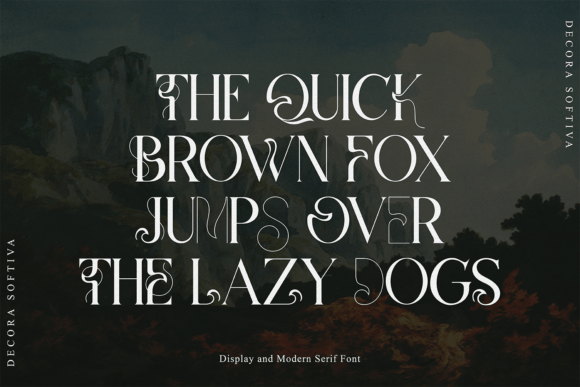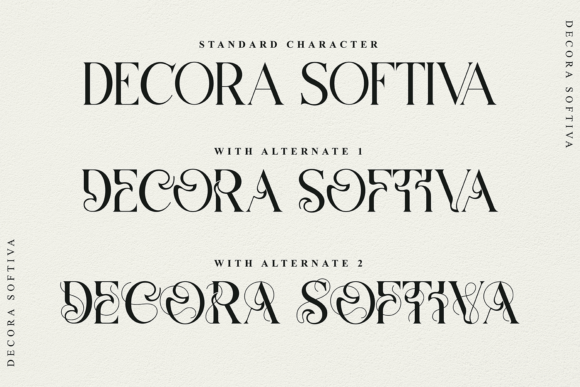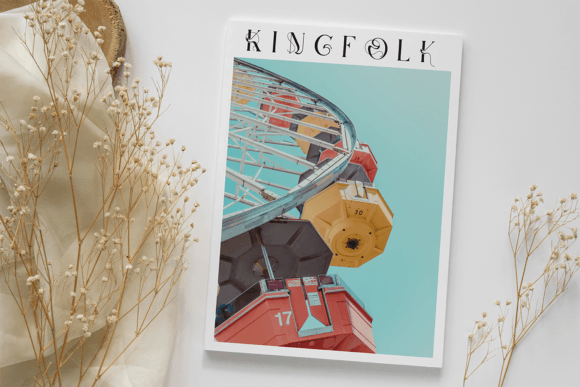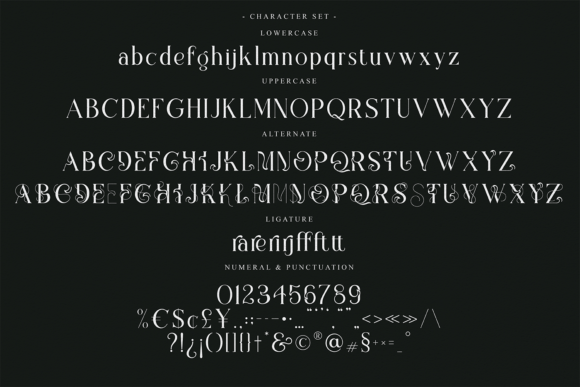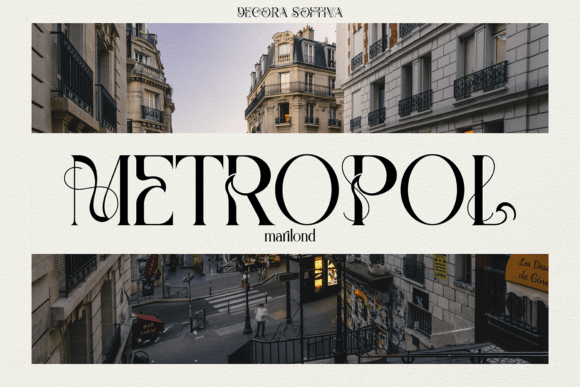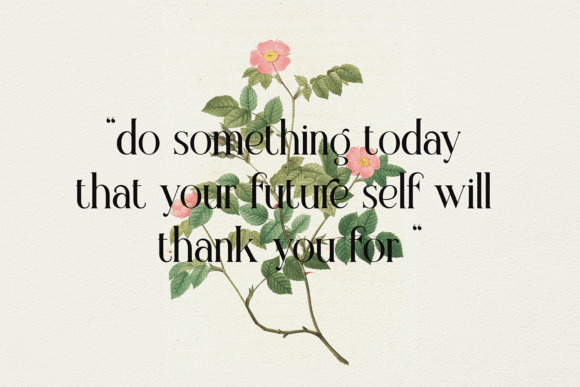
Introducing Decora Softiva Font: Elevate Your Designs with Elegance and Sophistication
In the world of typography, fonts play a crucial role in conveying messages, expressing emotions, and creating visual identities. For designers and crafters, finding the perfect font that combines aesthetics and functionality can be a daunting task. However, if you’re looking for a modern serif font that adds a unique touch to your designs, look no further than Decora Softiva Font.
What is Decora Softiva Font?
Decora Softiva is a modern serif font that boasts swirl decorative ornaments, making it an ideal choice for designers seeking to create spectacular designs. This font is perfect for those who want to add an extra layer of elegance and sophistication to their work. Whether you’re designing a logo, creating a brand identity, or crafting a beautiful piece of art, Decora Softiva Font is sure to impress.
Key Features of Decora Softiva Font
- Modern Serif Font: Decora Softiva is a modern serif font that combines traditional typography with contemporary design elements.
- Swirl Decorative Ornaments: The font features beautiful swirl decorative ornaments that add a touch of elegance and sophistication to your designs.
Benefits of Using Decora Softiva Font
So, why choose Decora Softiva Font for your design projects? Here are just a few benefits of using this amazing font:
- Unique and Aesthetic Designs: With Decora Softiva Font, you can create unique and aesthetic designs that stand out from the crowd.
- Versatility: Decora Softiva Font is versatile and can be used for a wide range of design projects, from logos and branding to crafting and art.
- High-Quality Typography: The font features high-quality typography that is clear, legible, and visually appealing.
Who Can Benefit from Decora Softiva Font?
Decora Softiva Font is perfect for a variety of designers and crafters, including:
- Graphic Designers: Graphic designers can use Decora Softiva Font to create stunning logos, brochures, and other marketing materials.
- Logotype Designers: Logotype designers can use the font to create custom logos and brand identities.
- Crafters: Crafters can use Decora Softiva Font to create beautiful handmade cards, scrapbook pages, and other craft projects.
- Art Designers: Art designers can use the font to create stunning artwork, illustrations, and other visual pieces.
Tips for Using Decora Softiva Font
To get the most out of Decora Softiva Font, here are a few tips to keep in mind:
- Use the Swirl Decorative Ornaments: Take advantage of the font’s swirl decorative ornaments to add a touch of elegance and sophistication to your designs.
- Pair it with Other Fonts: Decora Softiva Font can be paired with other fonts to create a unique and visually appealing design.
In conclusion, Decora Softiva Font is a modern serif font that offers a unique and aesthetic touch to designs. With its swirl decorative ornaments and PUA encoding, this font is perfect for designers and crafters seeking to create spectacular designs. Whether you’re a graphic designer, logotype designer, crafter, or art designer, Decora Softiva Font is sure to elevate your designs to the next level.